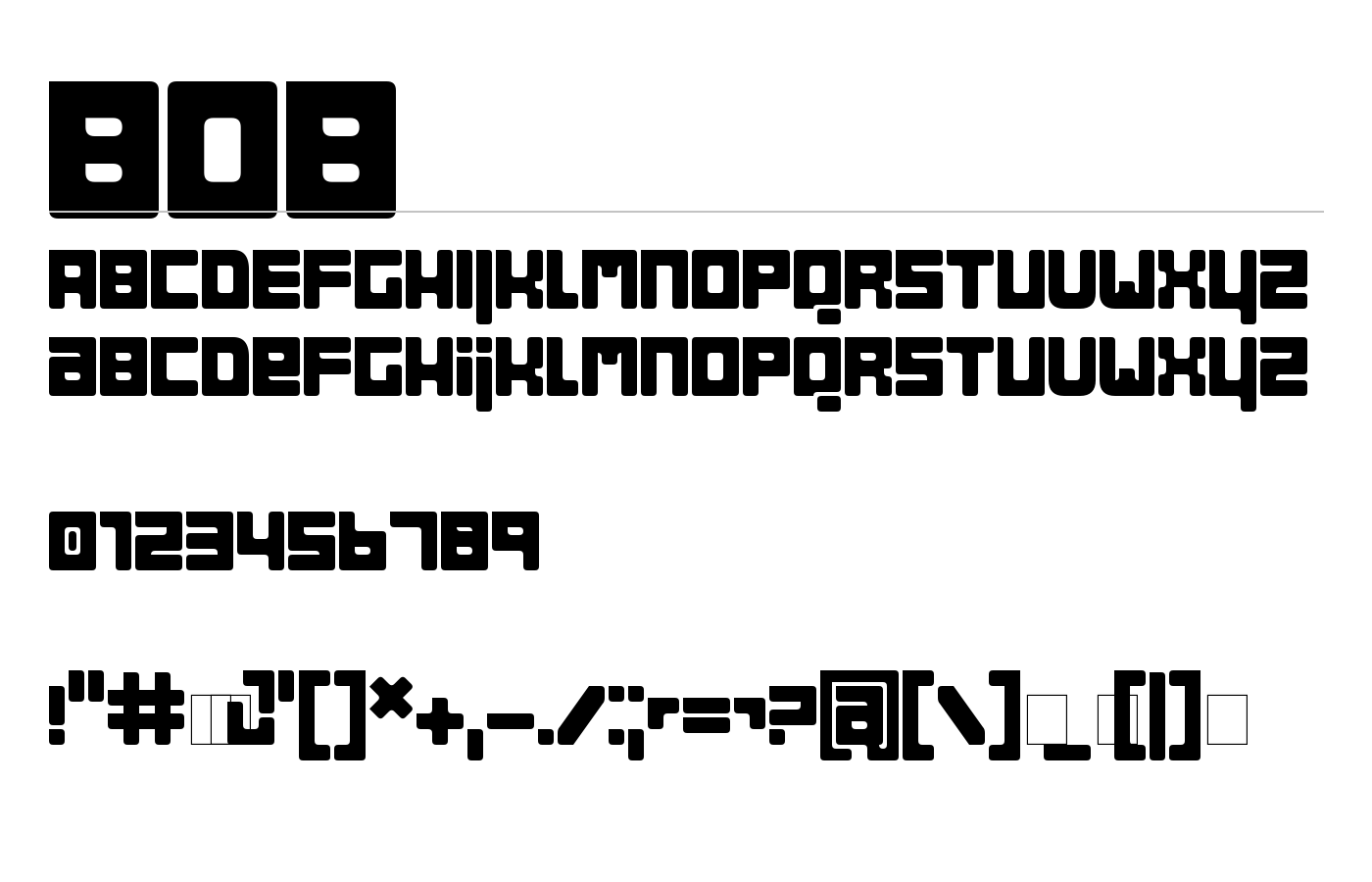
Bob Font is a bold, geometric sans serif with a playful yet structured appearance, featuring thick, blocky letterforms and rounded corners that add a friendly touch. Its uniform stroke weight and tightly spaced characters make it perfect for eye-catching headlines, logos, and designs that need a modern, tech-inspired vibe with a hint of fun and approachability.
Bob Font